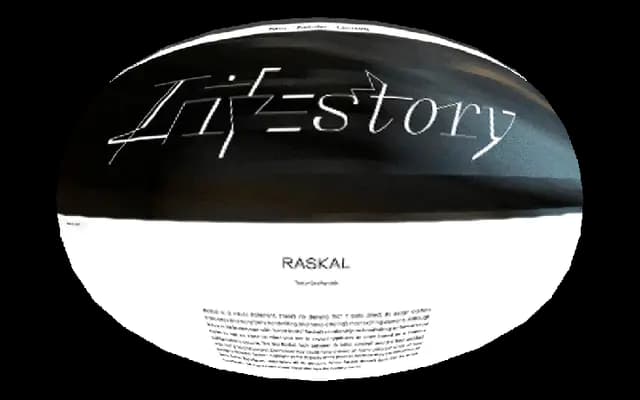
Raskal Oner
Swiss Typefaces · Emmanuel Rey
A display typeface by Emmanuel Rey for Swiss Typefaces, with font development by Benedikt Bramböck.
Designed by Emmanuel Rey under the art direction of Swiss Typefaces, Raskal Oner is a display typeface developed with technical work by Benedikt Bramböck. The page provides limited descriptive detail, but the Swiss Typefaces stable typically favours considered, contemporary type with a strong editorial bent. Further detail on weights, language support and intended use is not available from the provided copy.
The name and foundry context suggest a display or expressive typeface; insufficient page content to determine a more specific subcategory beyond display.